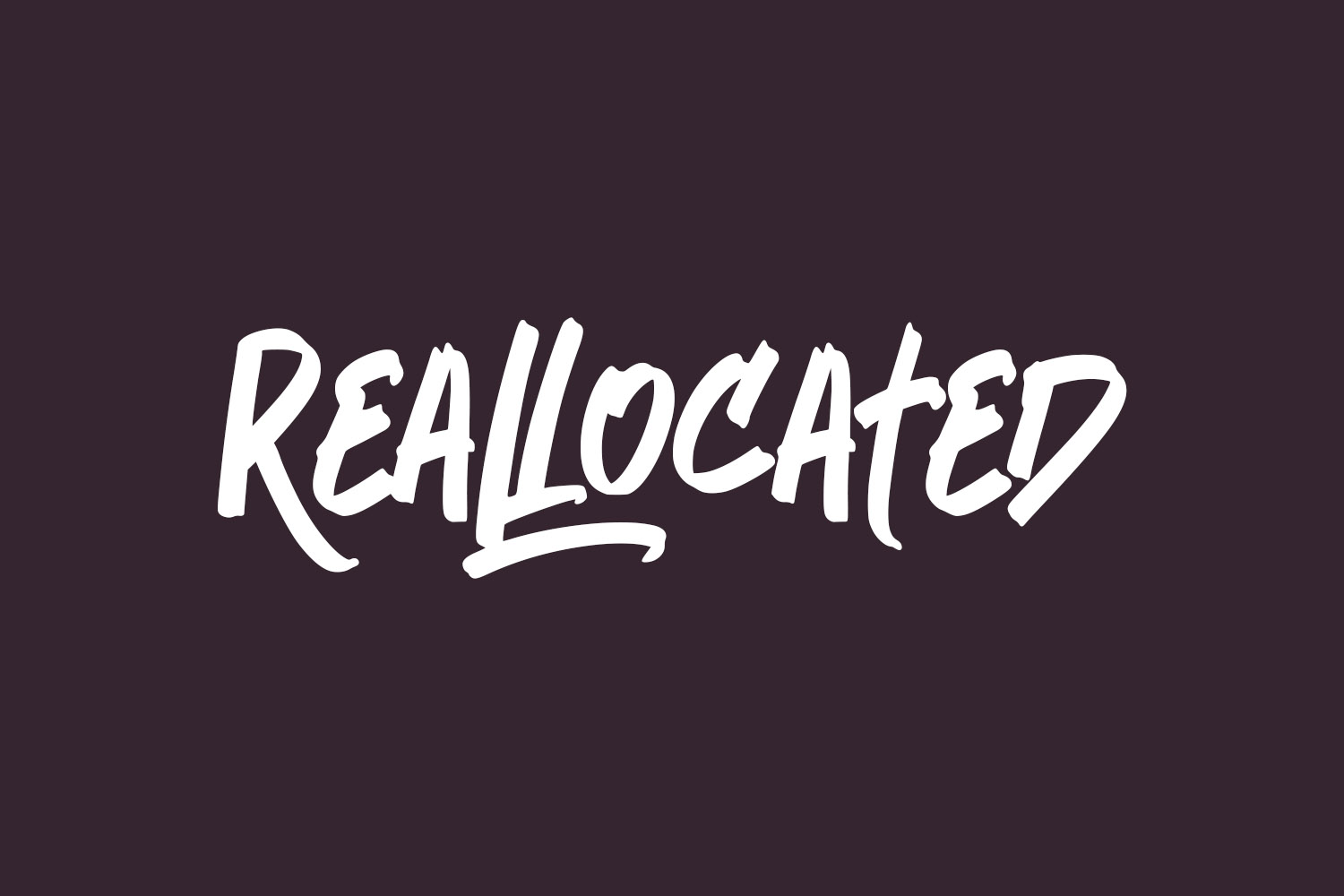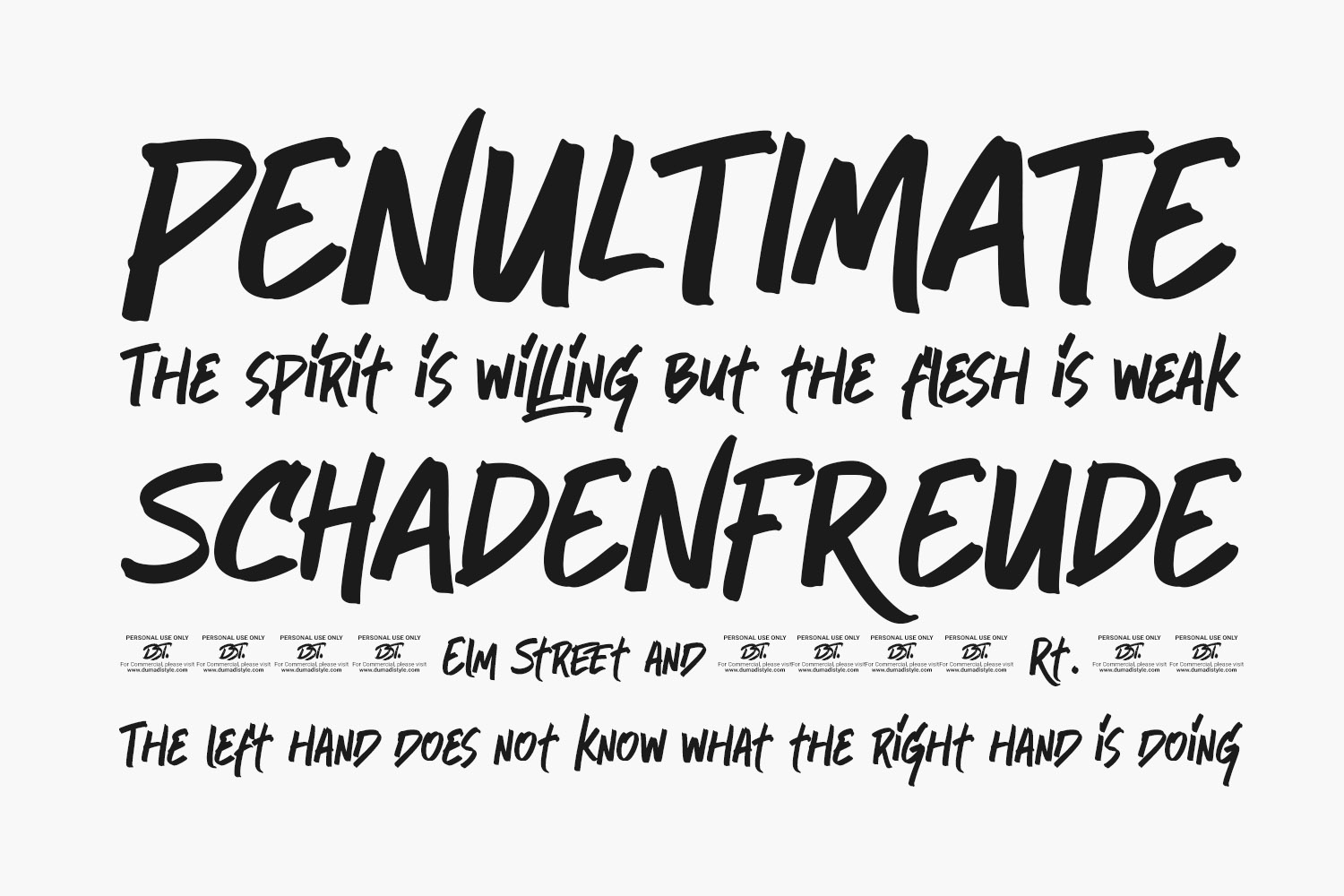
Reallocated Free Font is a stylish font with a distinct, random aesthetic, making it ideal for creative design applications. This versatile font is suitable for posters, headlines, and any project seeking a unique touch. However, Reallocated’s appeal comes with a caveat – it features varying letter heights, making it most suited for headers and design elements rather than body text. Additionally, the letter spacing in this typeface is inconsistent, necessitating careful review and adjustment before publication or sharing on social media. Reallocated Free Font is a demo and free for personal use only. Please purchase the full version for commercial use.